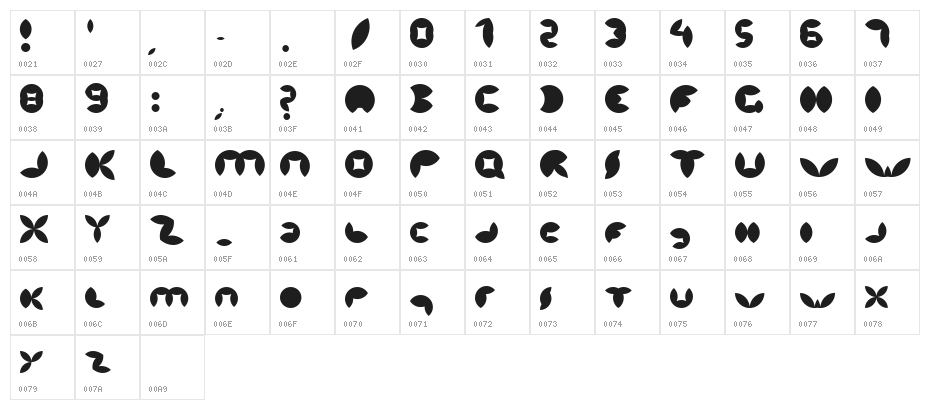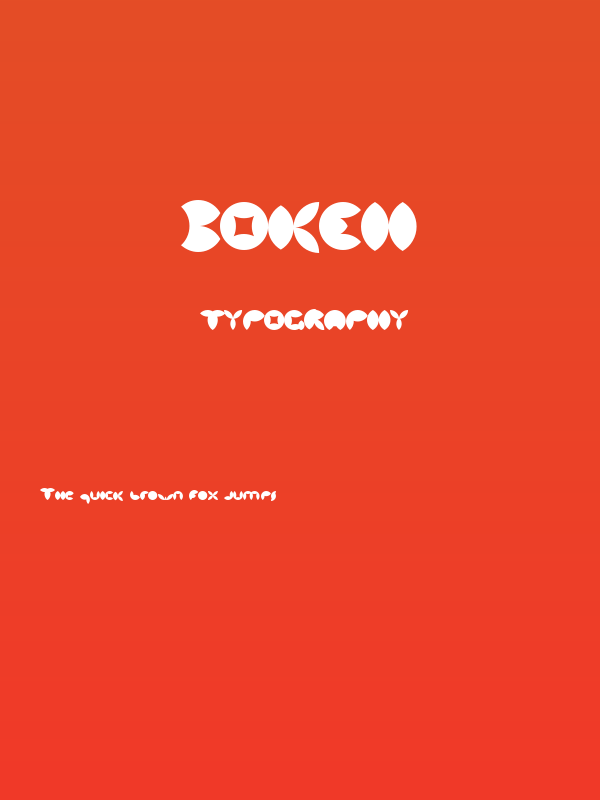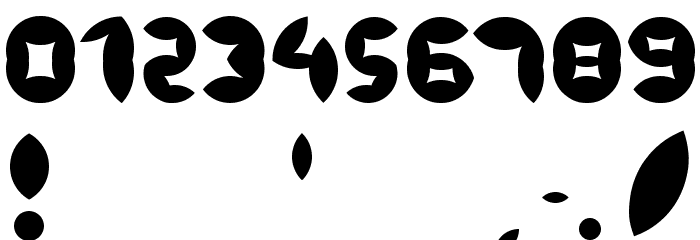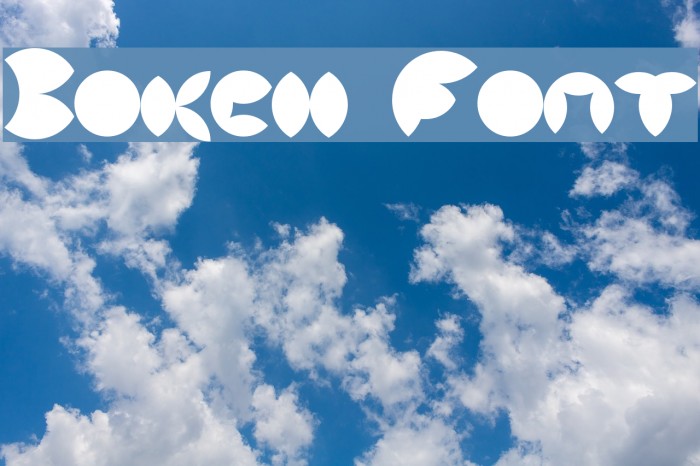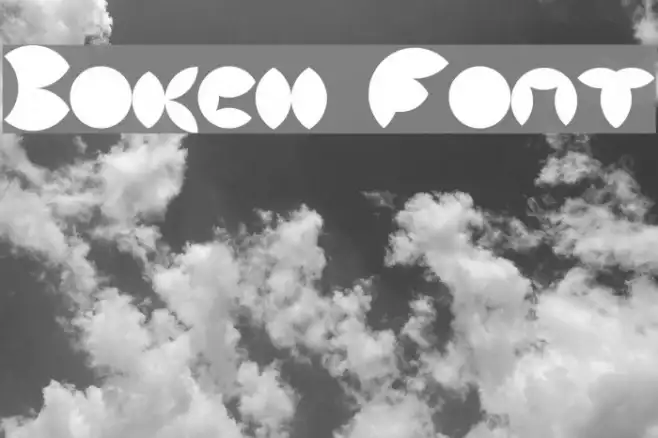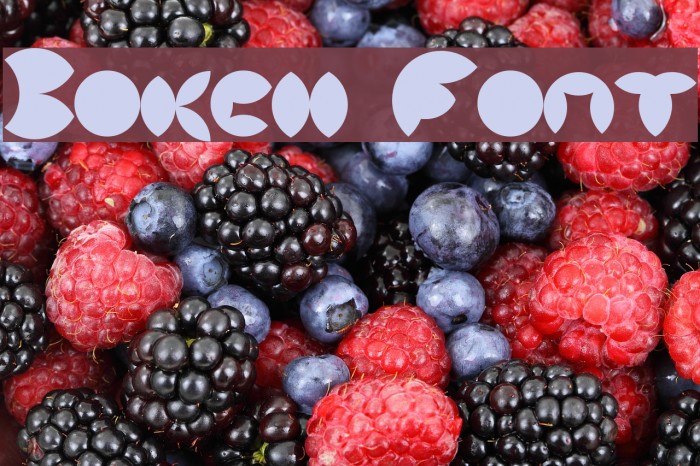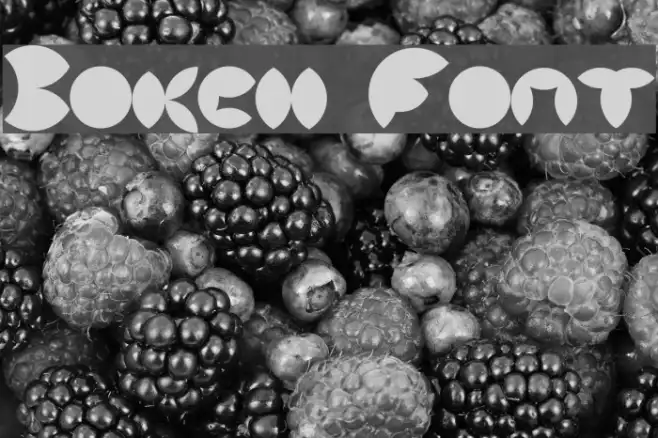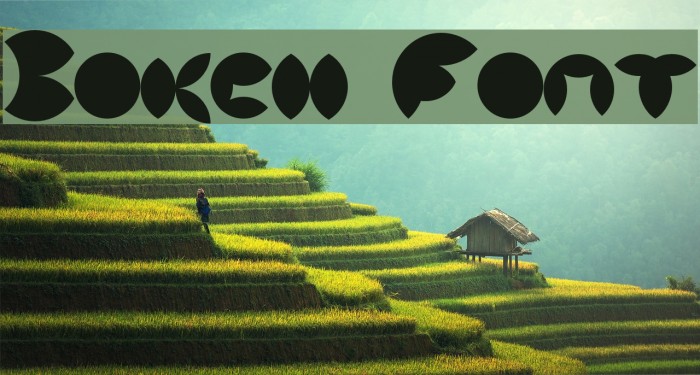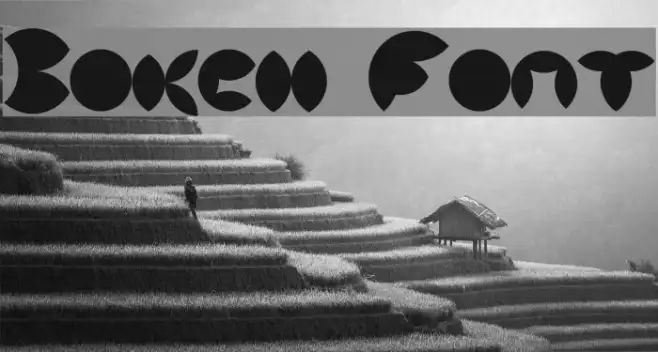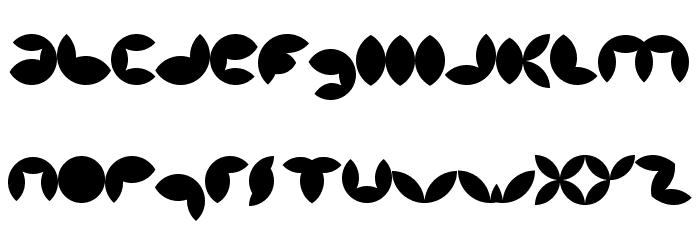
Bokeh Font
Bokeh Description
This font features a bold and playful design with a unique, organic appearance. Each character is composed of rounded, leaf-like shapes that give it a whimsical and artistic feel. The letters are highly stylized, with a consistent thickness throughout, creating a cohesive and visually striking look. The font's boldness makes it stand out, while the smooth curves and rounded edges add a friendly and approachable quality. It is well-suited for creative projects that require a distinctive and eye-catching typeface.